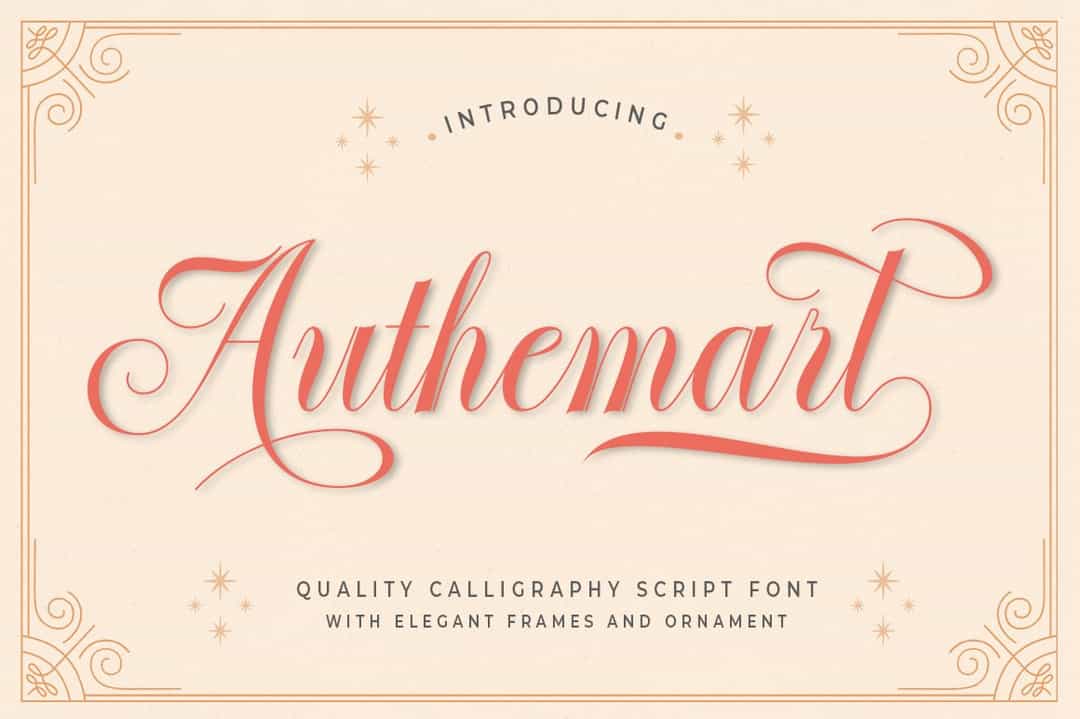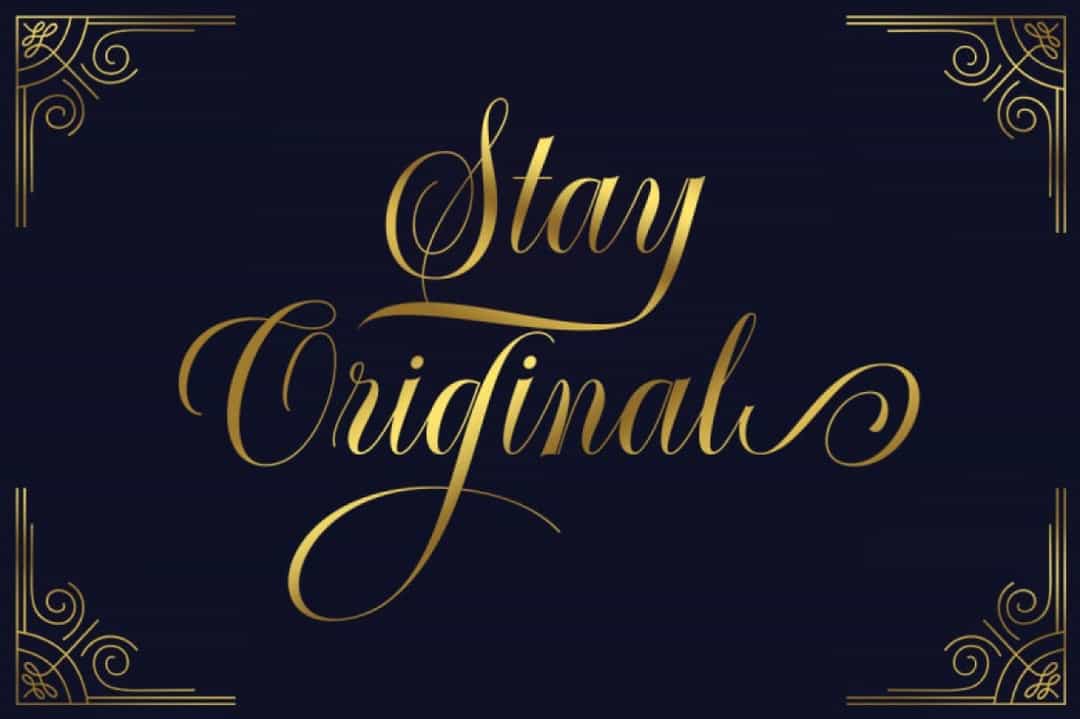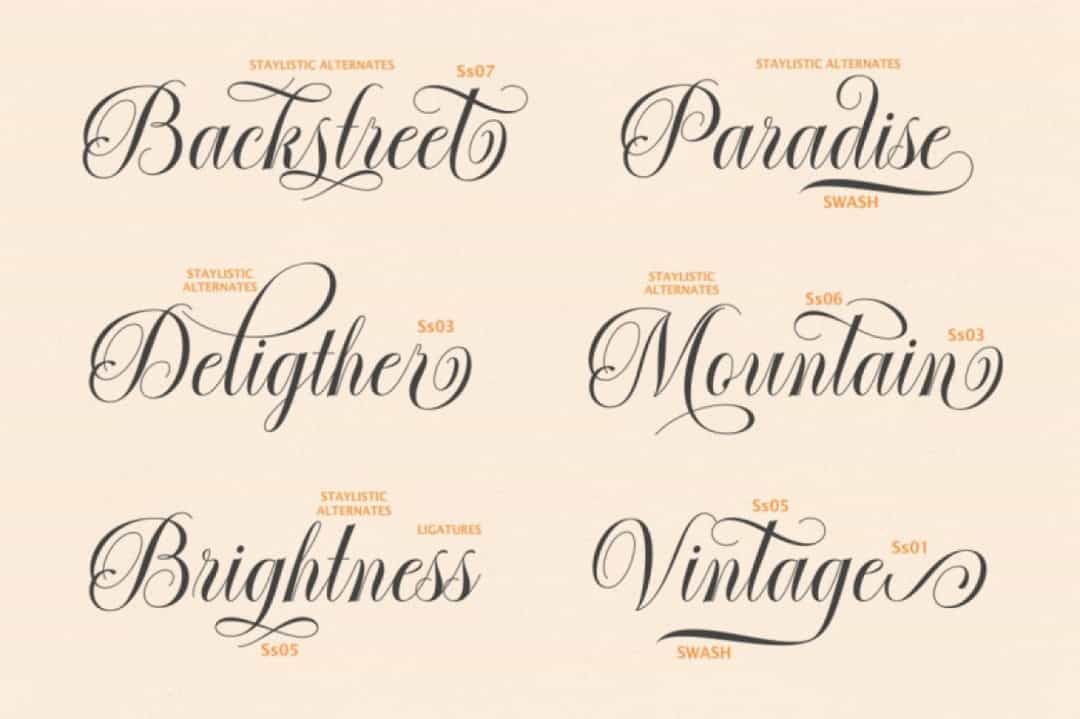
Authemart Caligraphy Font is an exquisite script font with vintage and modern influences, which offers sleek elegance, feminine beauty and sensuality in any design that requires classic appeal.